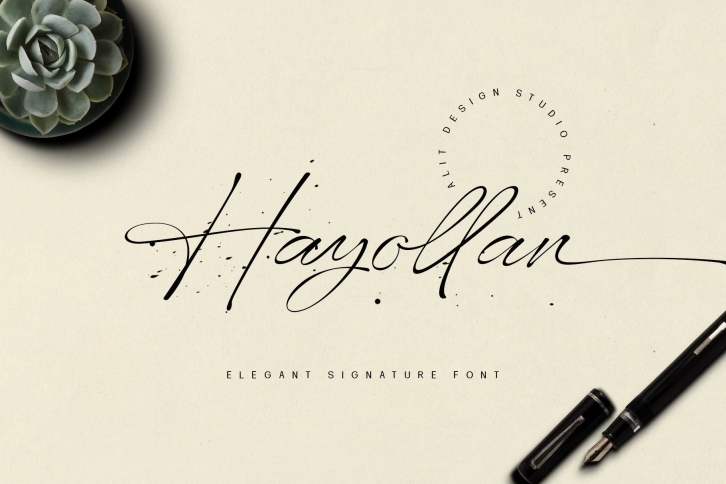
Hayollan Signature Script is a great font that was designed by alit suarnegara. Imagine the amount of combinations you can create using this font! The archive is 8.78 MB and it was released on August 18, 2022. Hayollan Signature Script looks beautiful on wedding invitations, greeting cards, logos, posters, labels, t-shirt designs, logos, business cards and is perfect for use in ink or watercolor works, fashion, magazines, packaging and food menus, children's books and more!